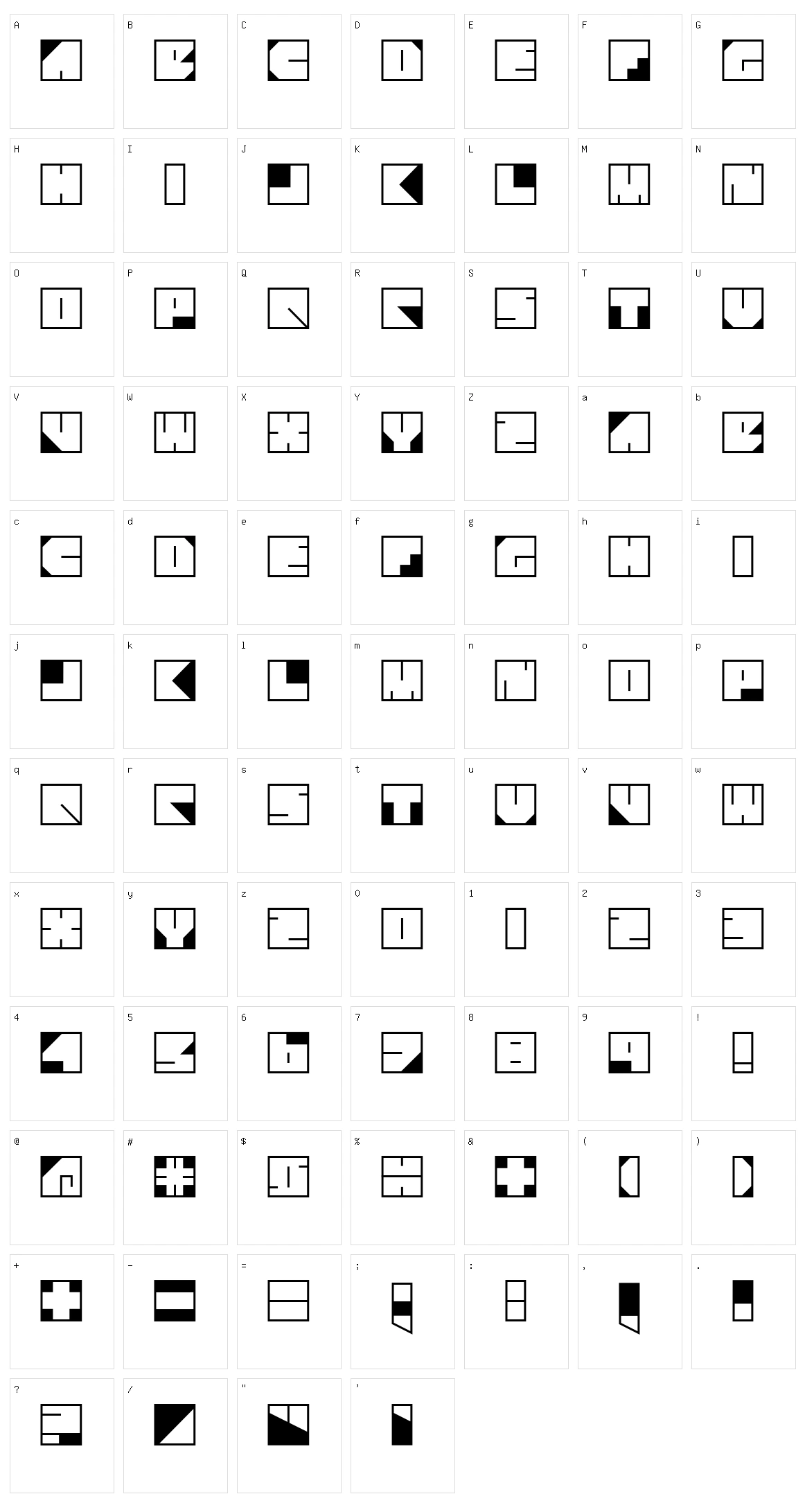
The free font Four Four is carefully designed by Zoya Feldman, showcasing a thoughtful balance of creativity and usability and falls under the Square font style. When you download the ZIP file, it contains only 7.25 KB of font files, making it lightweight and quick to download. Please review the license details below to understand permitted usage and distribution rights. If license information is not available, we recommend using this font for personal projects only or contacting the author directly for commercial usage permissions.